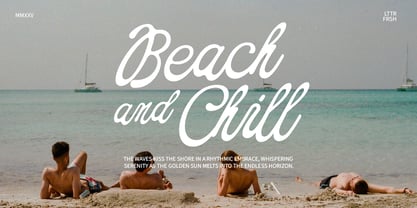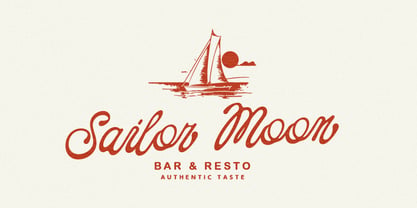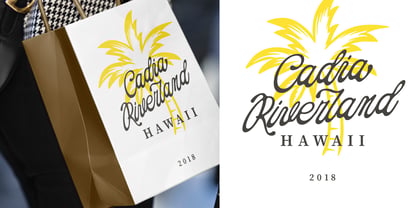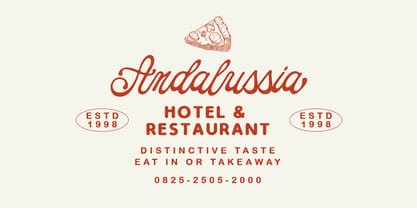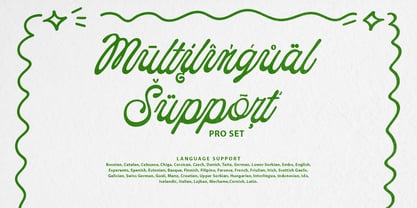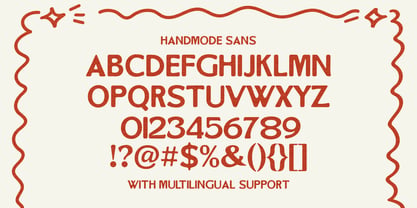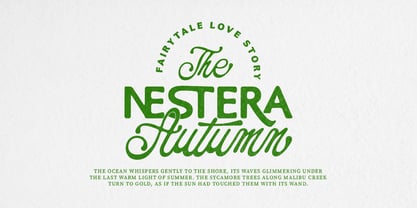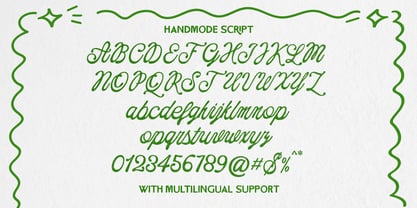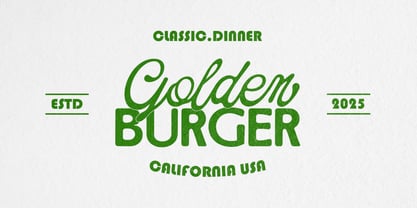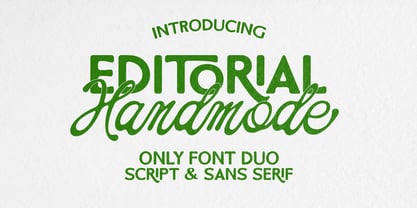
Handmode Editorial
A família de fontes Handmode Editorial foi desenhada por Rizki Andika e publicada pela Letterfreshstudio. Handmode Editorial contém 2 estilos e opções de pacote familiar. Saiba mais sobre esta família
Handmode Editorial a sweet and smooth font duo! With its chunky, rounded sans and a flowing, handwritten-style script, this playful pair brings just the right mix of bold and friendly. Perfect for product labels, greeting cards, social media posts, branding projects, logo designs, packaging, quotes, and more. I hope you enjoy these fonts; feel free to leave a comment if you have any thoughts or feedback. Thank you for purchasing, and have fun!